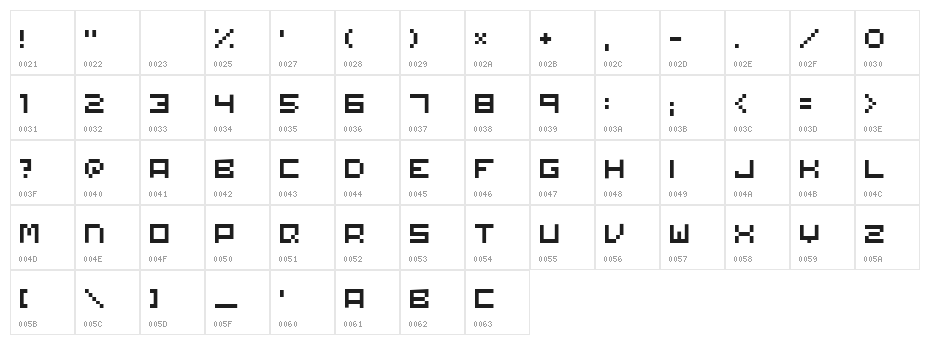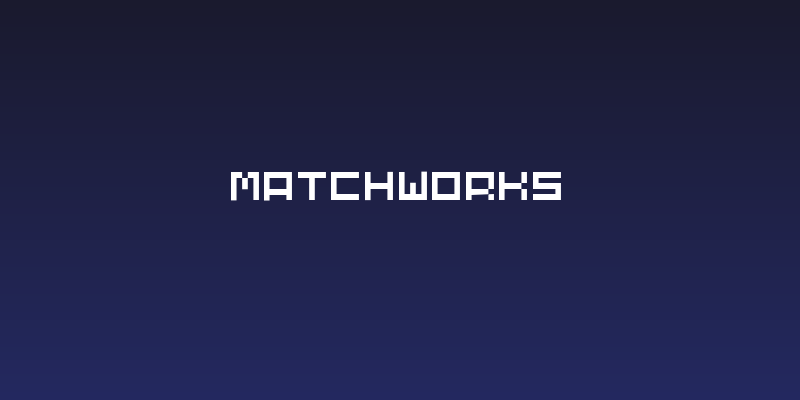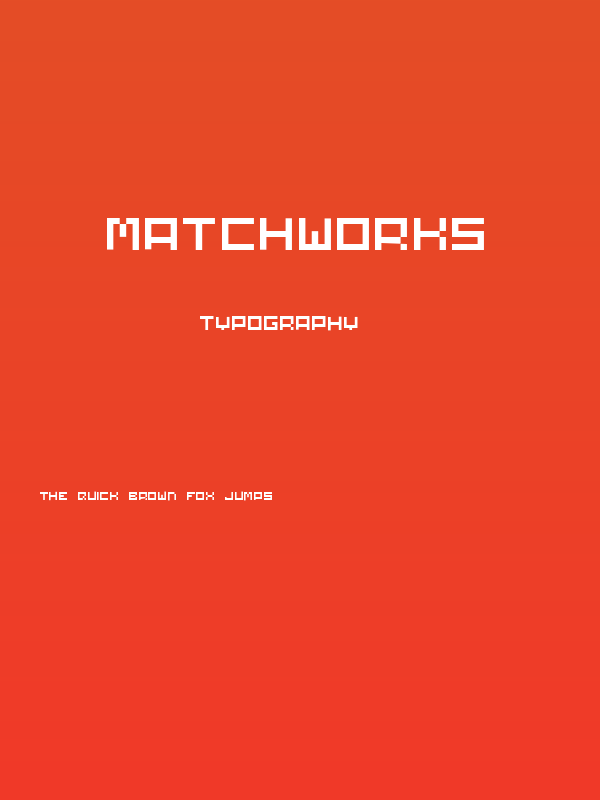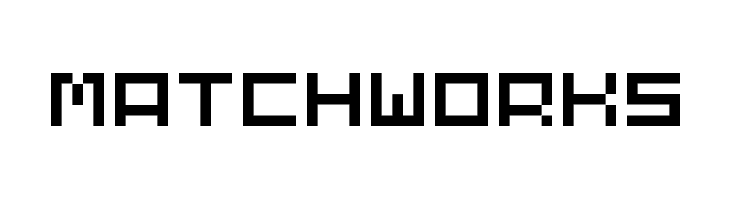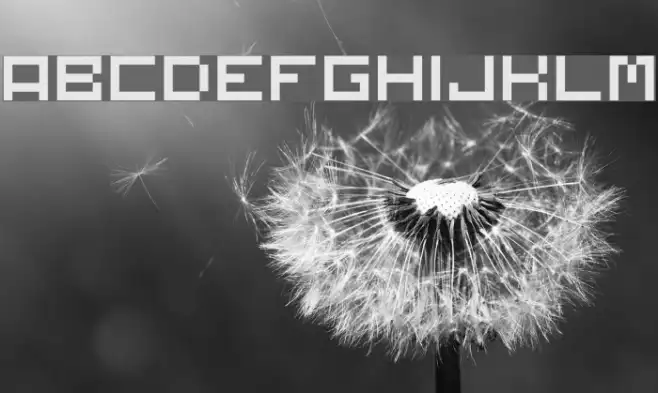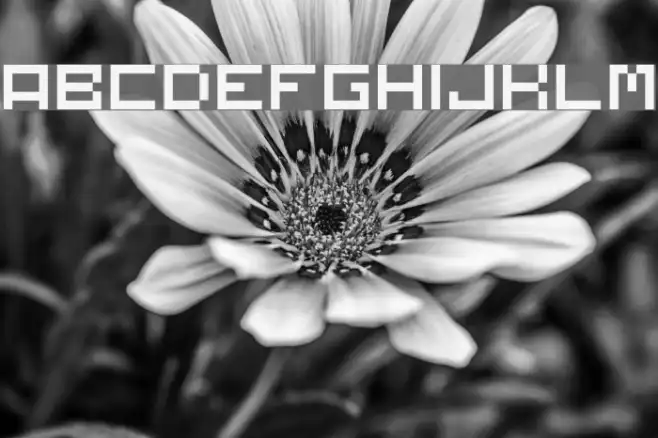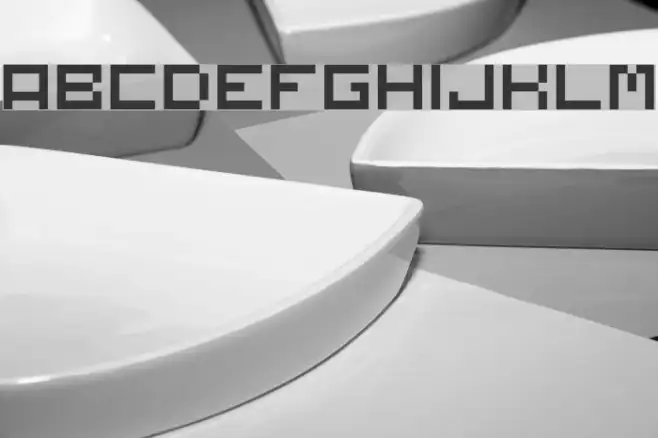
Matchworks Font
Matchworks Description
This font features a pixelated, blocky design reminiscent of early digital displays and video games. Each character is constructed with a uniform grid-like structure, giving it a distinctly retro and technological feel. The uppercase and lowercase letters share a similar height and width, maintaining a consistent visual weight across the alphabet. The numerals and special characters are designed to match the angular, geometric style of the letters, ensuring a cohesive look. This font's simplicity and boldness make it highly legible, even at smaller sizes, while its unique style adds a playful, nostalgic touch to any design.
| Overall Style | Retro, Digital |
| Use Case | Headlines, Logos, Digital displays |
| Proposed Projects | Ideal for video game design, retro-themed posters, digital art projects, and tech-related branding. |